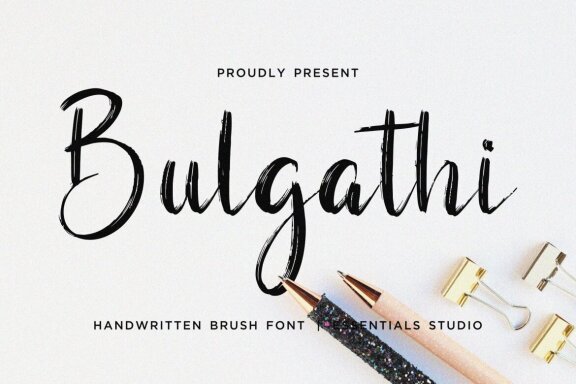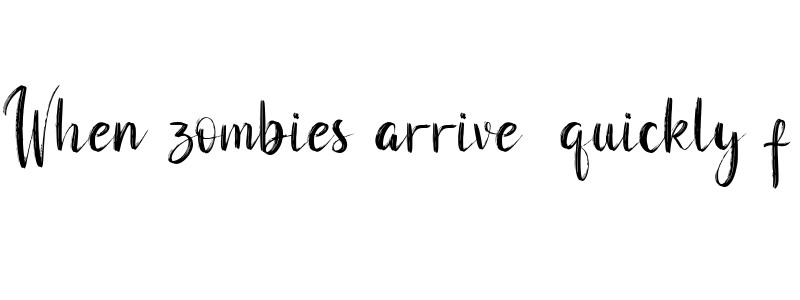
Bulgathi Brush - FREE Font
Bulgathi
Introducing by Essentials Studio
Proudly Present, Bulgathi
Bulgathi Is a Modern Brush HandScript Font
Bulgathi is perfect for product packaging, branding project, megazine, social media, wedding, or just used to express words above the background.
• bulgathi is a modern brush handscript font
• bulgathi is perfect for product packaging, branding project, megazine, social media, wedding, or just used to express words above the background.